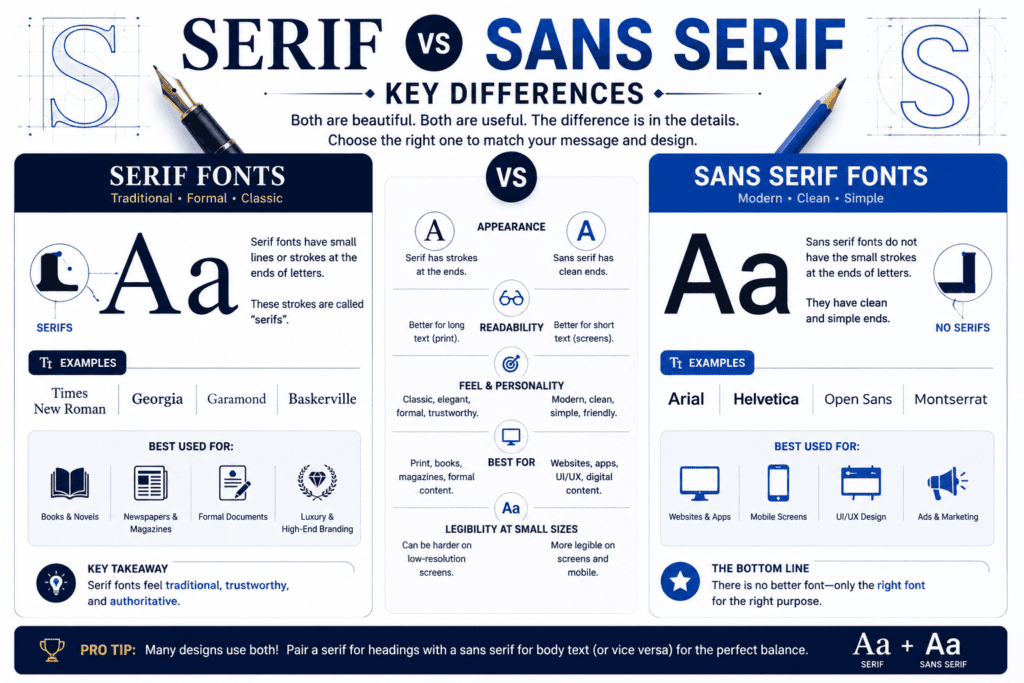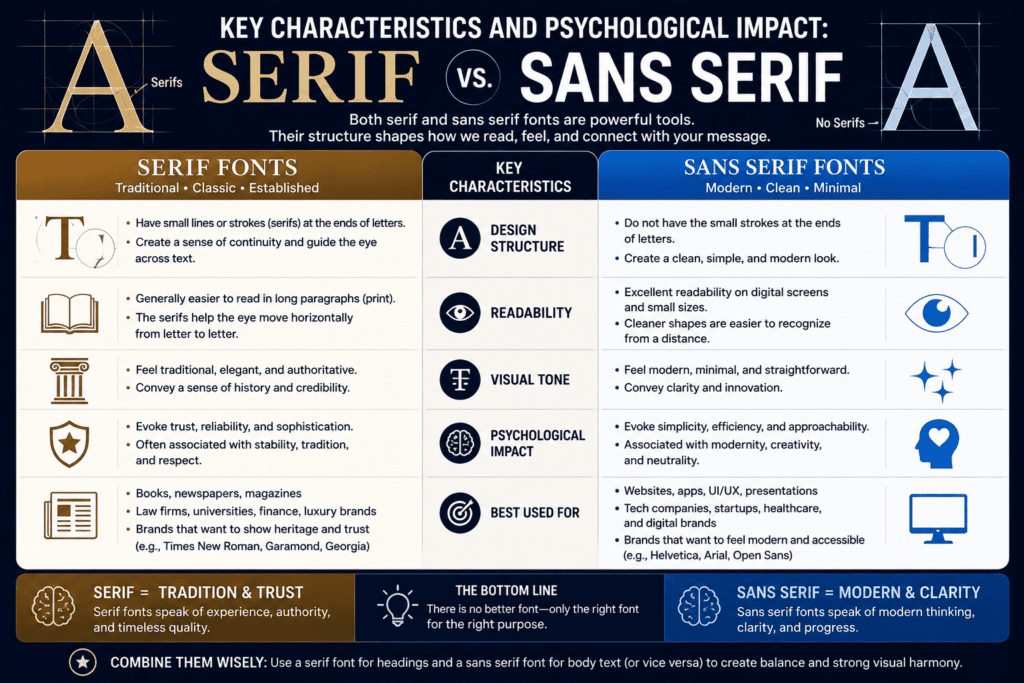
Serif vs Sans Serif Fonts: Key Differences
Choosing between Serif fonts and Sans-Serifs is less about rules than understanding their visual differences. In practice, typography works best when its style of design, brand feeling, and good readability support the message and audience.
Serifs bring small decorative strokes and a classic vibe, while sans serif lettering favors a streamlined look, minimalist simple neat forms, and no small lines. The distinction matters because choice changes tone without changing words.
Serif Vs Sans Serif Font Differences
The difference is not merely decorative. Brand perception often reflects processing fluency: serif typefaces score higher for heritage cues, while sans serif typefaces score higher for immediacy, openness, and a distinctly contemporary sense of directness.
Serif typography often signals tradition authority, whereas sans serifs emphasize modernity clarity. Still, execution decides success: good spacing, sensible line length, and adequate contrast can matter more than category labels alone visually in real applications.
What Are Serifs?
A serif is the terminal detail added to letter strokes, often described as small decorative lines or feet at the end of each stroke. These marks give characters stronger differentiation and a historically rooted texture.
Serif design contains four types commonly discussed: old-style, transitional, new-style, and slab serifs. Their forms differ through terminal shape, stroke contrast, and the slope of ovals, letting designers tune warmth, elegance, strength, or drama precisely.
History/Origin Of Serif And Sans Serif Fonts
Serif development reaches beyond printing: ancient Roman stones show carved letter endings, while scribes, brushes, and quills likely shaped finishing habits. Later, centuries book printing normalized these details, turning practical marks into recognizable typographic tradition.
Sans serif forms emerged later through the 19th century, then accelerated with industrialization, modernism, and utilitarian forms. By the early 20th century, designers favored stripped structures that matched changing technology, architecture, advertising, and public communication.
Key Characteristics And Psychological Impact: Serif Vs. Sans Serif Fonts
From a branding perspective, serifs convey trust sophistication tradition craft, while sans serifs communicate clarity modernity friendliness efficiency. I’ve found that style reinforces emotion because visual details shape customers feel, credibility, warmth, accessibility, and authority.
Contrast affects tone: serifs read classic traditional status-oriented elegant, whereas sans serifs perceived minimalist simple neat. In practice, modern friendly minimal styling feels direct, while editorial crafted established premium typography adds depth, heritage, seriousness, refinement.
Most Important Serif Facts
Serif typography carries weight of history, yet its value is practical: the letter details help distinguish letterforms and support comfortable reading in books; measured spacing and line length keep dense passages calm, ordered, and readable.
In practice, serifs are more versatile than their traditional reputation suggests: Old-style serifs can project heritage comfort, while Modern serifs may carry polished, fashion-forward energy, giving brands character without sacrificing clarity, usability, or professional credibility.
Most Important Sans Serif Facts
In contemporary typography, designers choose from countless sans serif families, but popularity alone never guarantees usefulness. The designs prioritize open shapes, consistent spacing, and efficient recognition, especially where interfaces demand fast reading across screen sizes.
Working with brand systems shows why sans serifs remain most popular: they feel neutral without becoming anonymous. Their broad category contains geometric, humanist, and grotesque approaches, letting teams tune personality while preserving clarity across applications.
When/Where To Use Serif Fonts
For brands seeking credibility, serif fonts fit books magazines posters, boutique goods, heritage narratives, and authority-driven services, where structure can express tradition expertise luxury editorial voice while remaining elegant noticeable rather than ornamental or outdated.
I use serifs when print needs depth, for long-form reading, premium packaging, formal headlines, and refined brand storytelling; in a digital environment, screen-optimized serif families can still work when size, spacing, and contrast are tested.
When/Where To Use Sans Serif Fonts
For interface-heavy work, I usually reach for this category first. It suits websites apps email, UI text, navigation, and small labels, because simple forms scale well, load predictably, and support clear scanning across varied displays.
Beyond apps, I use this style where messages must register quickly. Sans serifs dominate signage and short bursts of text because fast scanning matters, especially when viewers move, glance, or read information from a distance.
What Is A Sans-Serif Font?
A sans-serif font is easily identified by absence of ornamental endings. In practice, these concise fonts offer a wide use scope; neo-grotesque options, display text fonts, and new subfamilies let designers tailor tone across projects.
Which Fonts Are Considered Serif And Which Are Sans Serif?
From hands-on practice, I classify TT Livret, TT Bells, and TT Regins as serif selections; TT Norms Pro, TT Commons Pro, and TT Turns are sans serifs, offering straightforward reference points for comparison across projects.